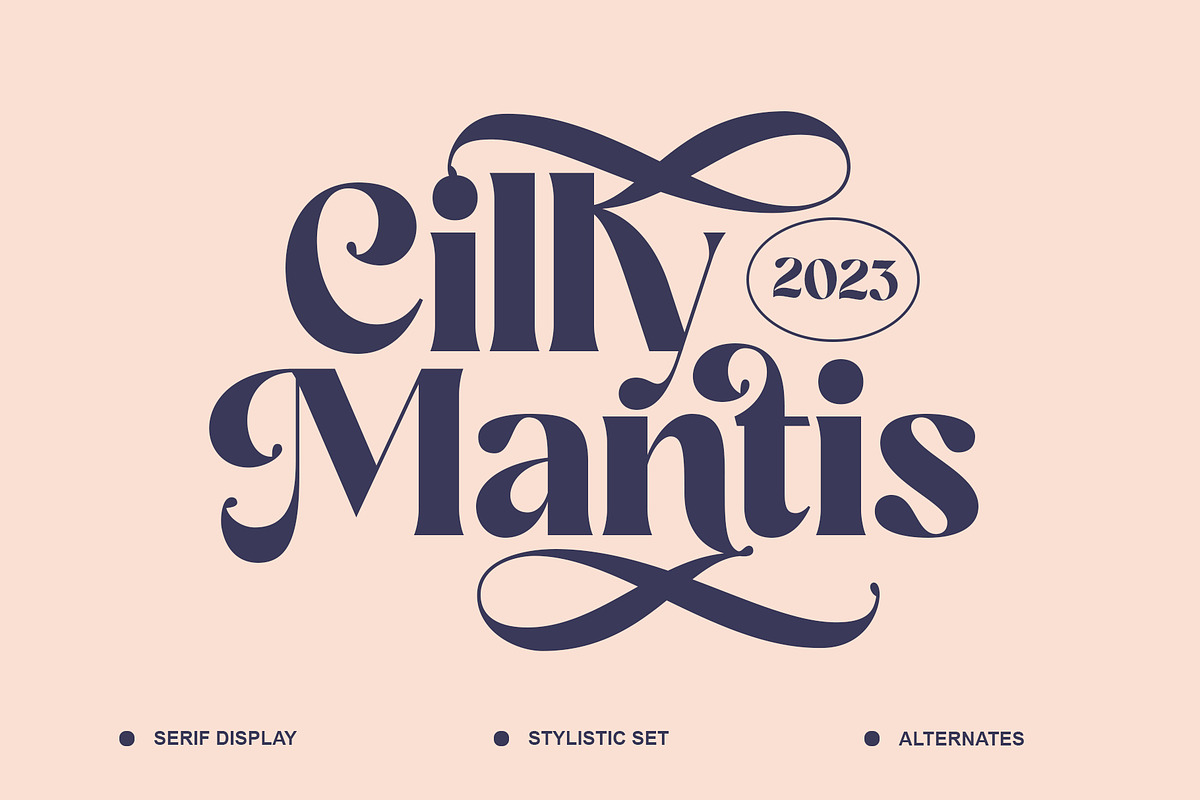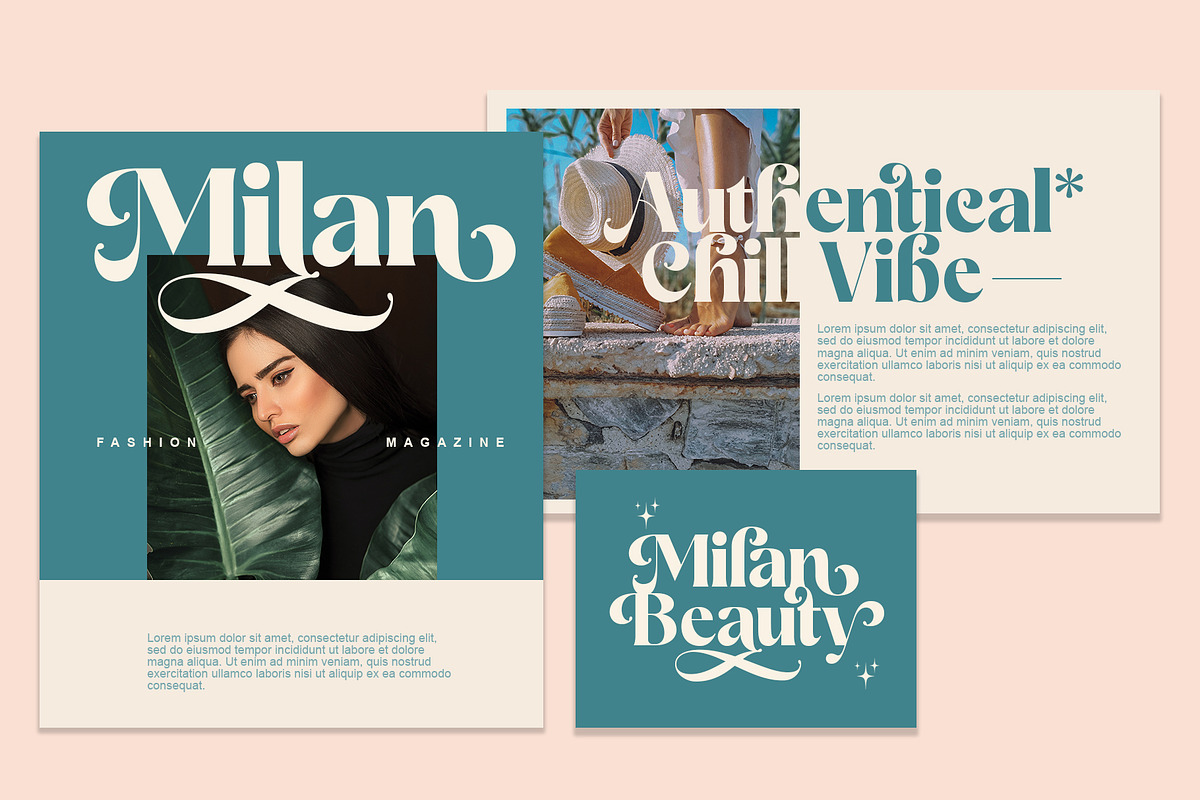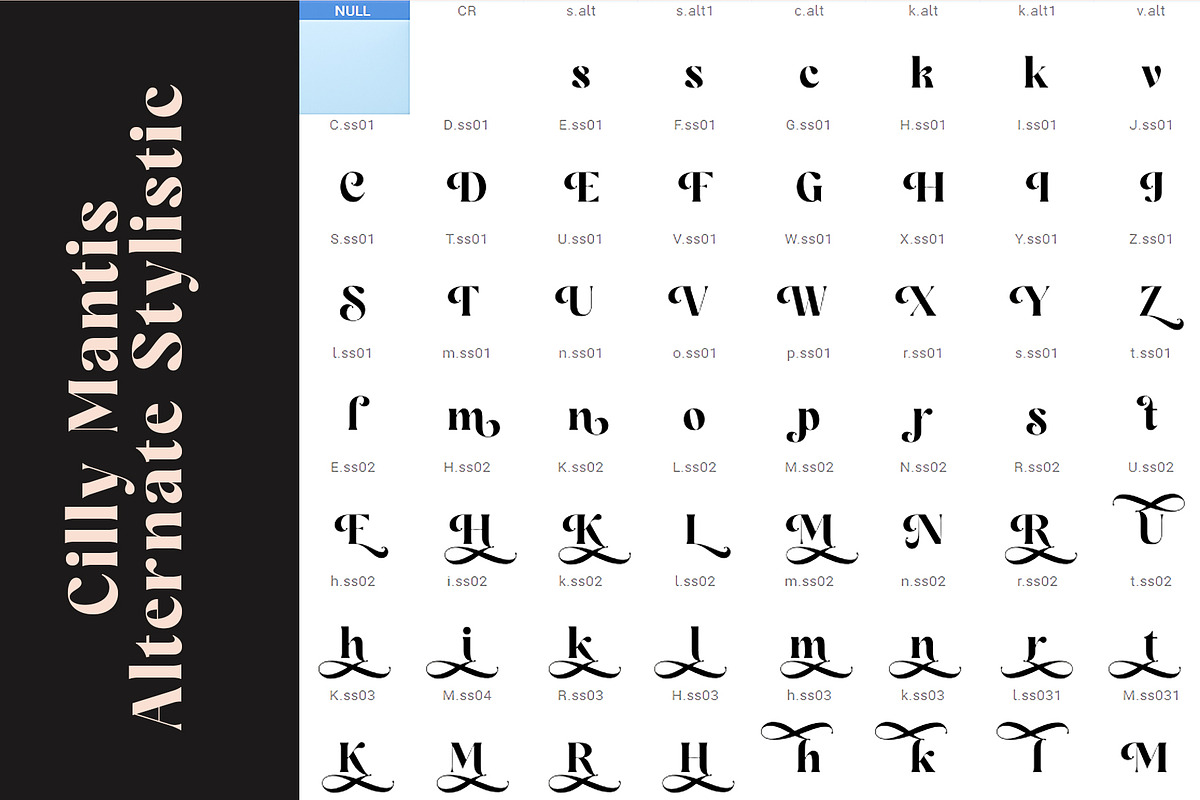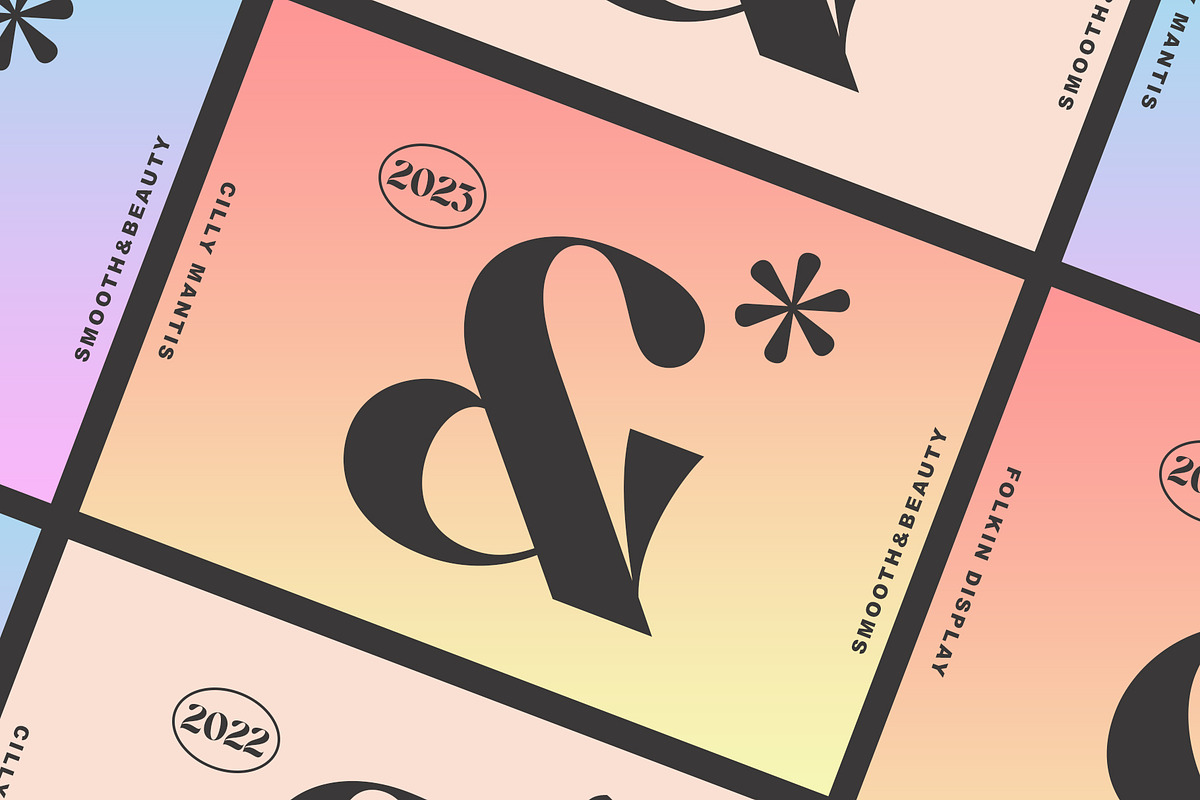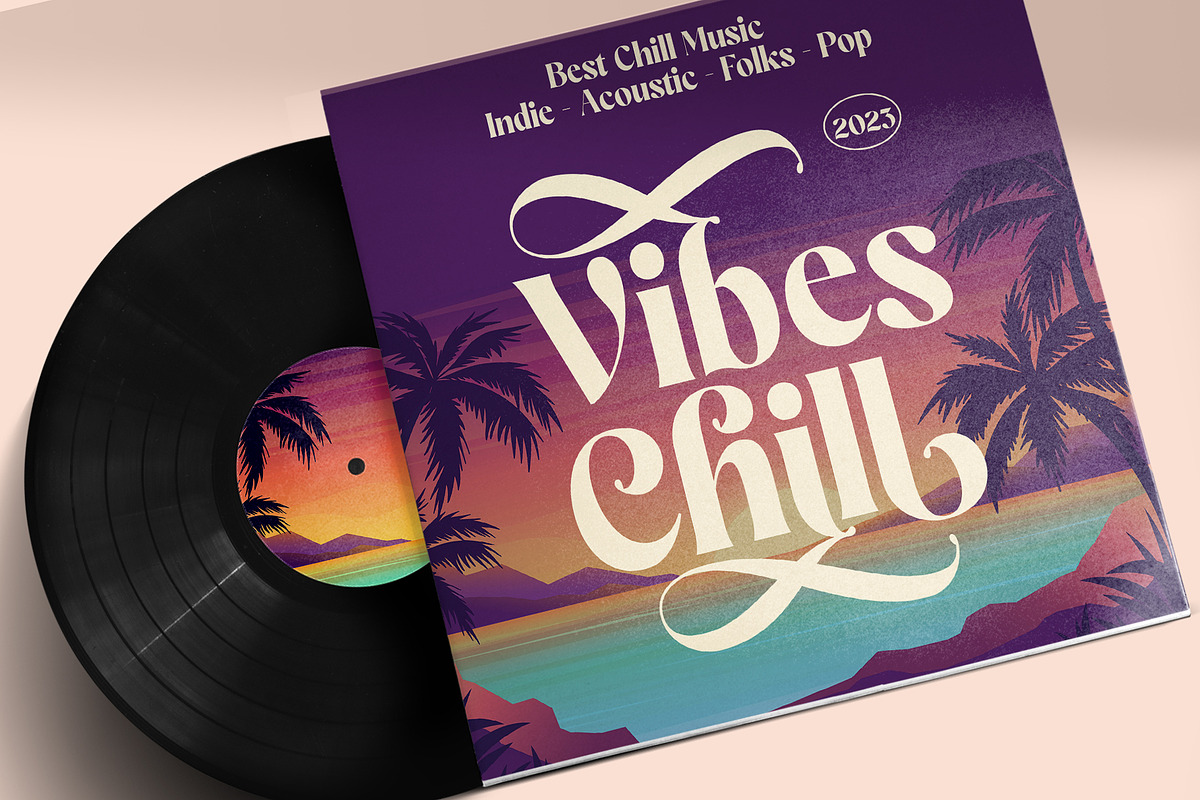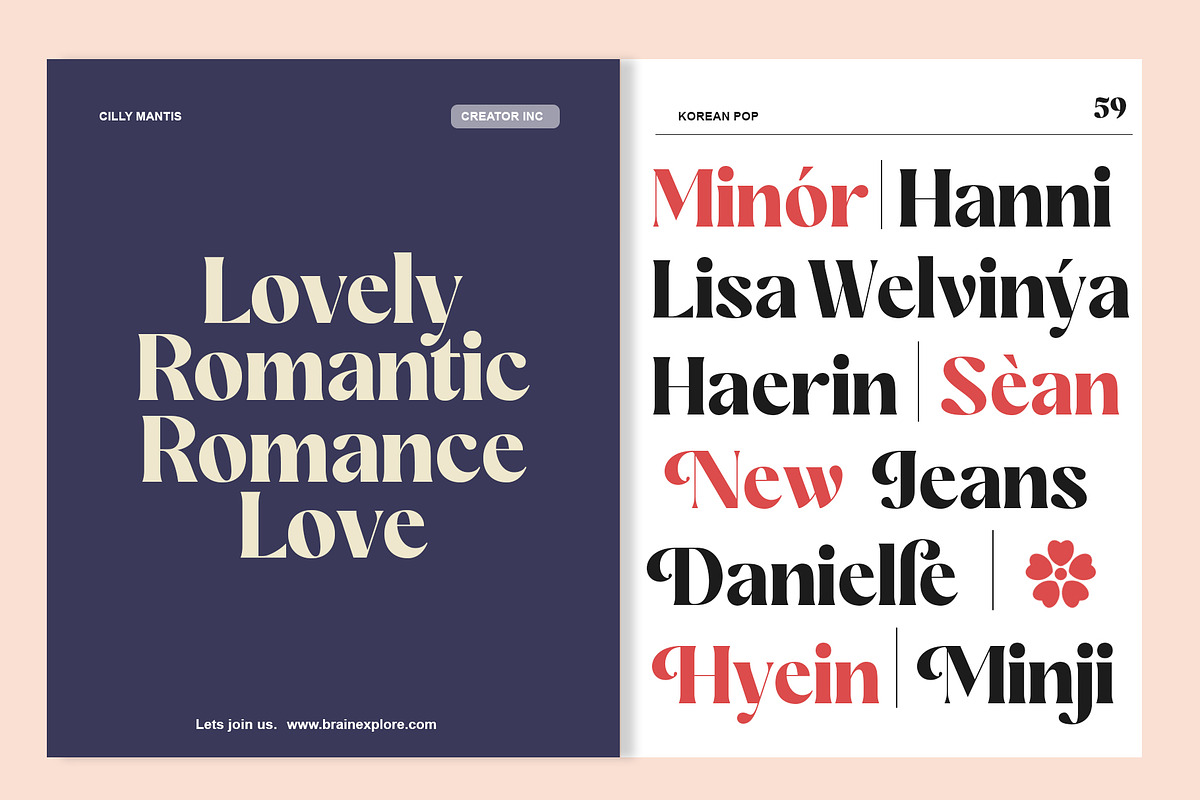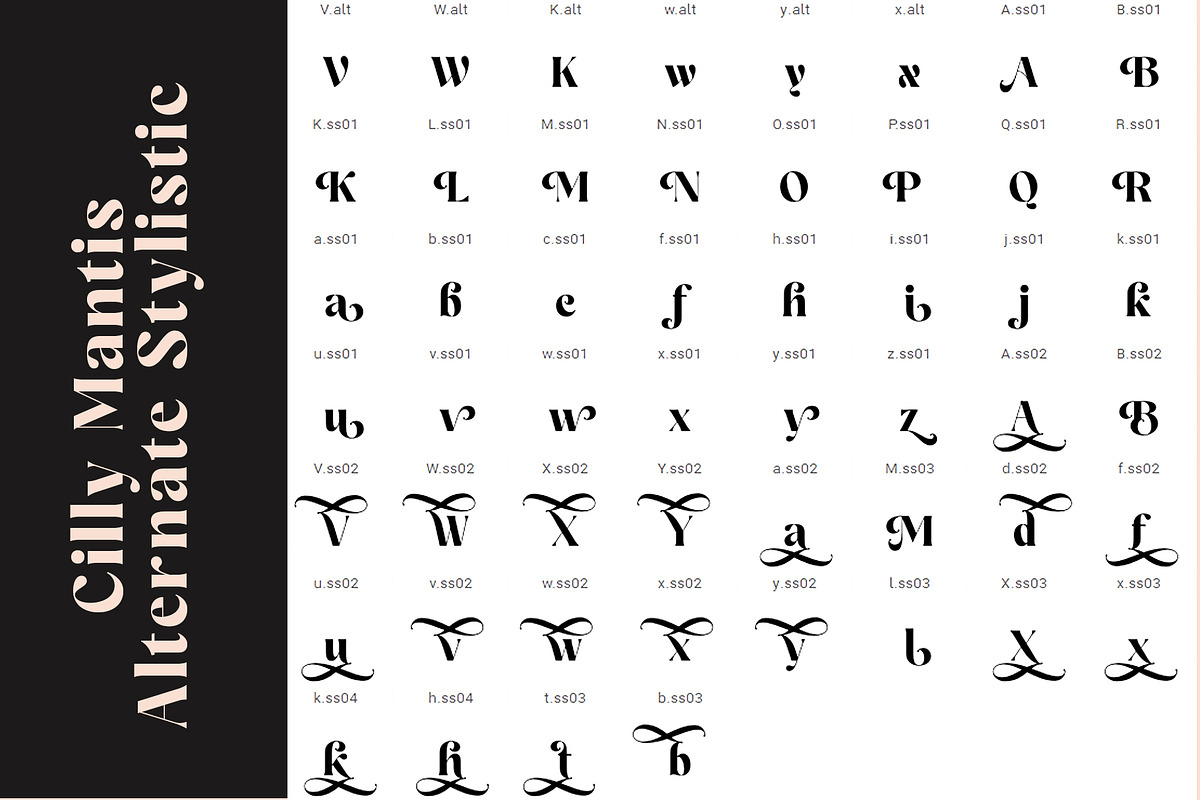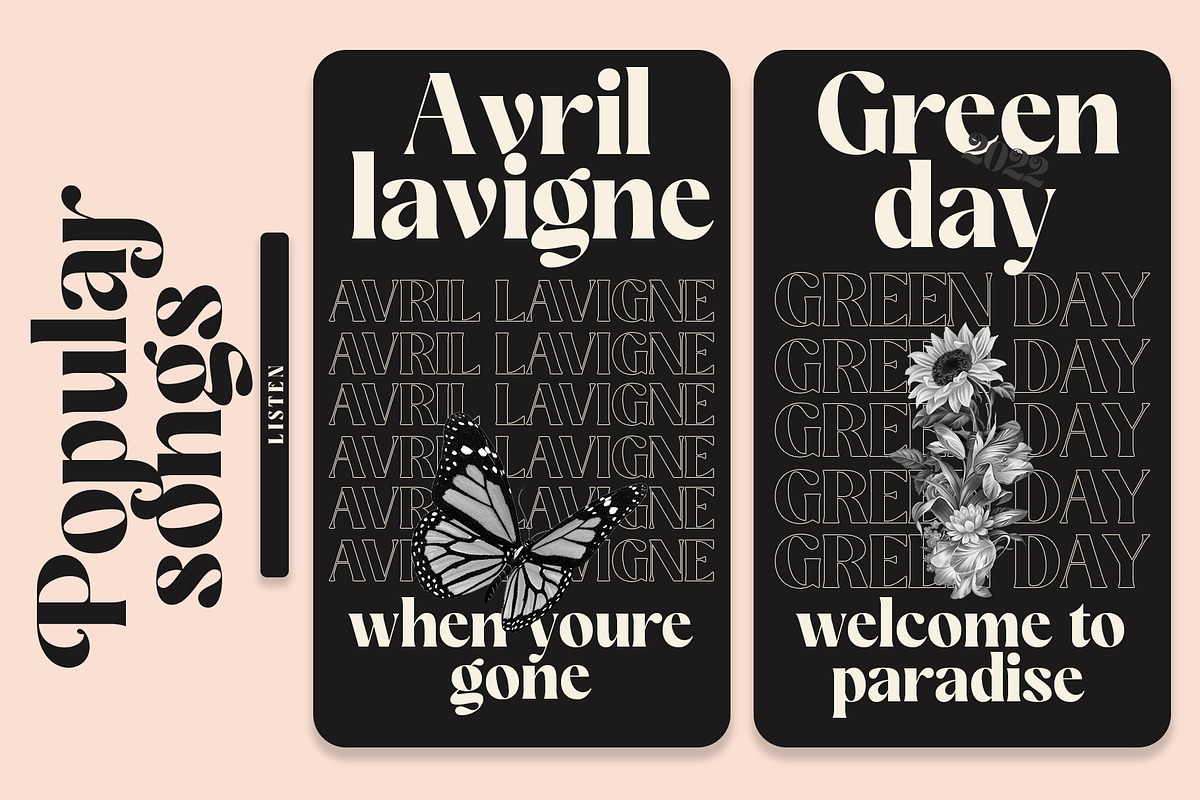
Cilly Mantis
Hello, this time we would like to introduce a new product. namely "Cilly Mantis", a Serif display font that has a classic, feminine, and elegant style wrapped with a beautiful Alternate stylist.
The Cilly Mantis font is perfect for various projects like logos & branding, invitations, stationery, wedding designs, social media posts, advertisements, printed quotes, product packaging, product designs, labels, photography, watermarks, special events or anything else.
- Numeral
- Functional
- Stylistic